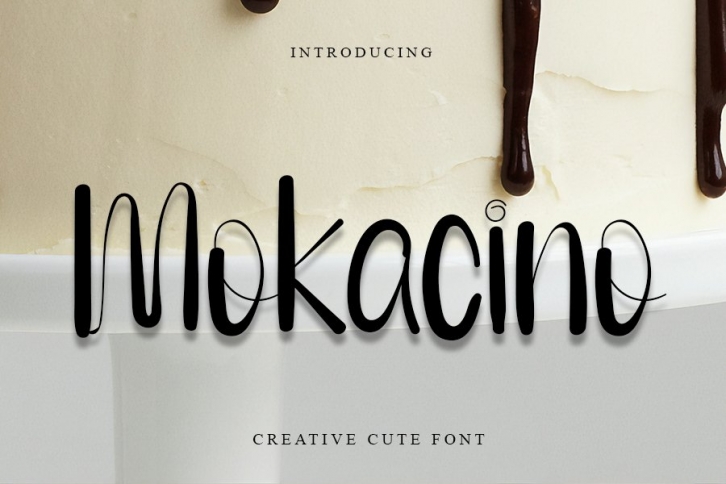
Mokacino is a gorgeous font that was realeased on January 20, 2021. The font can be used in many style contexts and design environments. Perfect for invitations, magazines, websites, logos, and more! It was designed by InermediaSTUDIO and the file size is 3.32 MB. Thanks for checking out this font!